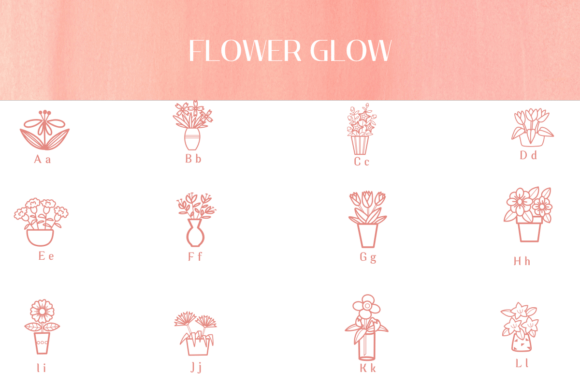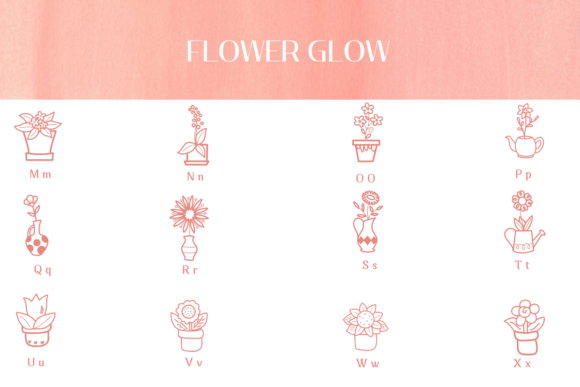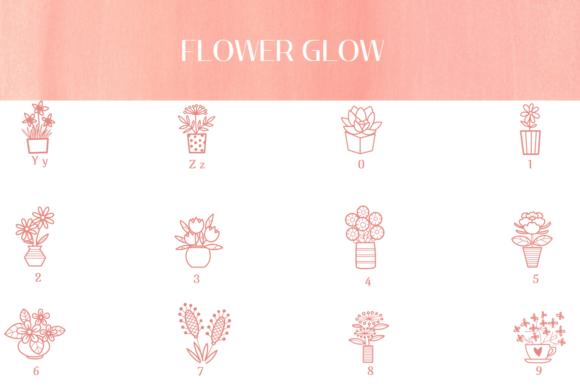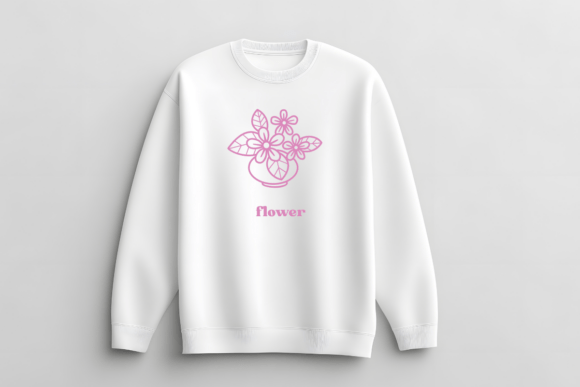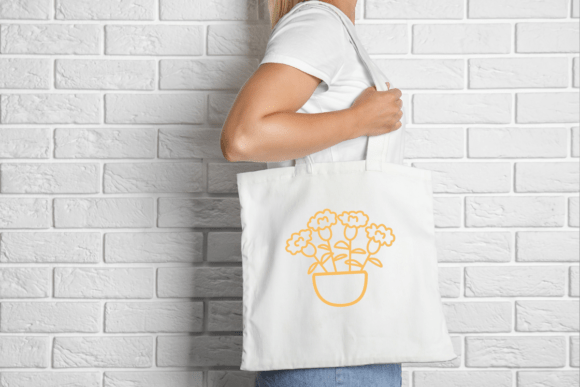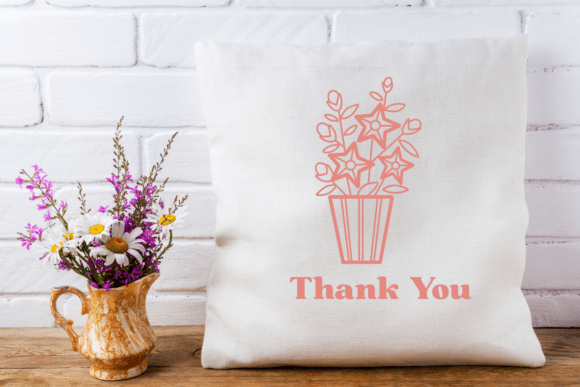
Introduction to Flower Glow Font
Have you ever found yourself staring at a blank page, waiting for the perfect spark to ignite your creative project? It’s that moment when the world seems to pause, and all you need is the right tool to bring your vision to life. For designers, this moment is a regular occurrence, and having the right design resource can make all the difference.
Enter the Flower Glow Font – a high-quality, free download that’s about to become your new best friend. This fun and cute dingbats font is perfect for adding a touch of whimsy to your designs, and with its transparent background, you can easily layer it over any image or background without compromising on quality.
Whether you’re working on a children’s book, a greeting card, or a social media campaign, the Flower Glow Font is a valuable addition to your design toolkit. Its versatility and charm make it an ideal resource for designers who want to add a personal touch to their creative projects.
Key Features of Flower Glow Font
- High-quality design with a transparent background, making it perfect for creative projects.
- Includes a range of sizes and resolutions to suit different design needs, from 12pt to 72pt and 72 DPI.
- Unique, hand-drawn style that adds a touch of elegance to any design, making it a valuable design resource.
- Perfect for use in digital design projects, including web design, graphic design, and UI/UX design.
- Can be easily customized and edited using font editing software, allowing for endless creative possibilities.
- Comes with a full character set, including uppercase and lowercase letters, numbers, and punctuation marks.
Honest Review: Flower Glow Font
I recently had the chance to work with the Flower Glow Font, and I must say, it’s a lovely addition to my design resource library. As a designer, I’m always on the lookout for high-quality fonts that can elevate my creative projects.
- ✨ The transparent background makes it easy to use in various design scenarios, from digital art to print materials.
- ⚠️ The font is quite delicate and may not be suitable for projects that require a bold, attention-grabbing font.
- ⚠️ The font doesn’t come with a comprehensive character set, which may limit its use in certain design applications.
Overall, I think the Flower Glow Font is a great design resource for creative projects that require a touch of elegance and sophistication. While it may not be suitable for every design scenario, it’s definitely worth considering for those looking for a high-quality, free font with a transparent background.
Tips for Getting the Most Out of Flower Glow Font
To get the most out of the Flower Glow Font, experiment with different font sizes, colors, and layering techniques. You can also combine the font with other design elements, such as images and shapes, to create a unique and eye-catching design.
The Flower Glow Font is perfect for a variety of creative projects, including:
- Graphic design projects, such as posters and flyers
- Business presentations and reports
- Personalized gifts and cards
Yes, the Flower Glow Font has a transparent background, making it a versatile design resource for designers. This feature allows you to easily place the font over any background, making it perfect for creative projects that require a high level of customization.